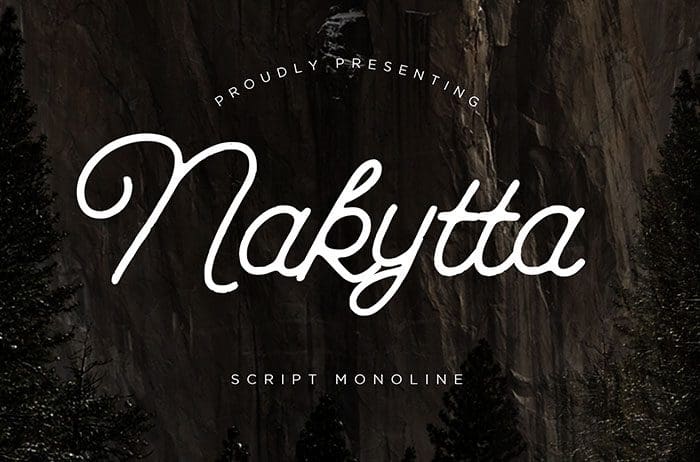
Nakytta Script Font
Nakytta is a Script Font that looks elegant and classy. Nakytta is perfect for branding projects, logo, wedding designs, photography, invitation, and more. Thanks to Creatype Studio for sharing this font! Take a look at this portfolio for more of his stunning fonts.